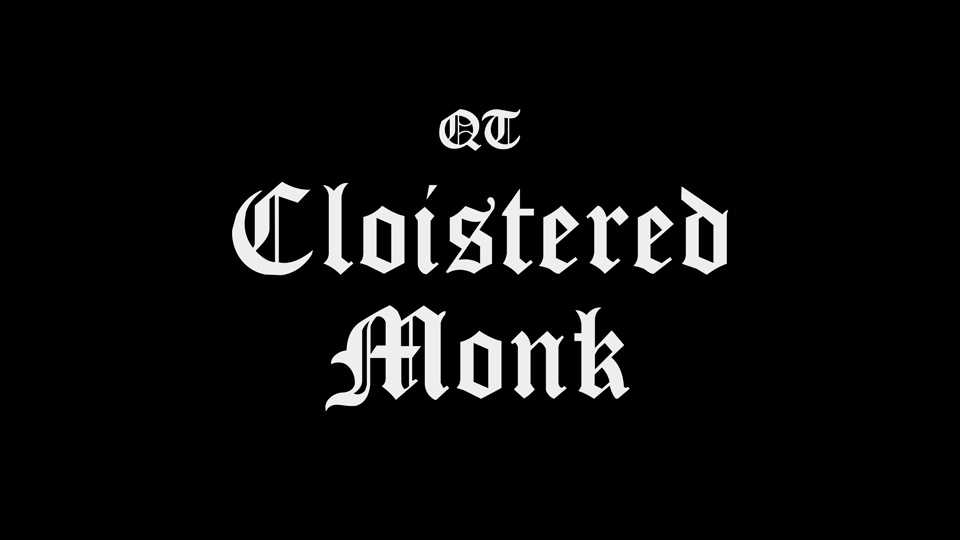
Download Cloistered Monk font, a clean-cut blackletter typeface, based on that of Caslon Black, a Blackletter type cast by the venerable William Caslon foundry in England, circa 1760.